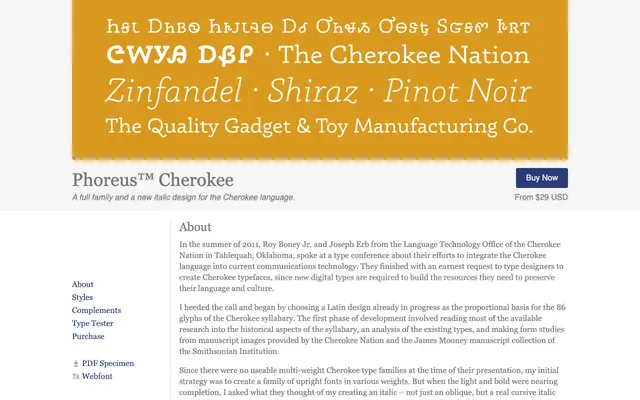
Phoreus™ Cherokee
Type Culture · 2011
A multi-weight family designed for the Cherokee syllabary, including the first cursive italic and the first full family with Cherokee lowercase glyphs.
Developed at the request of the Cherokee Nation's Language Technology Office, the family covers 86 Cherokee syllabary glyphs across Regular, Italic, Bold and Bold Italic, with the italic drawn from nearly 180 years of Cherokee manuscript sources rather than simply slanting the upright. Version 2, completed in 2015, added the newly specified Cherokee lowercase, making Phoreus the first full typeface family to include it. The uncomplicated forms are aimed primarily at young readers in language preservation contexts, though the Latin complement has found independent use.
Phoreus Cherokee is a humanist serif designed to support the Cherokee syllabary alongside a Latin complement; its forms are described as distinct and uncomplicated, suited to young readers, with a genuine cursive italic drawn from Cherokee handwriting manuscripts.